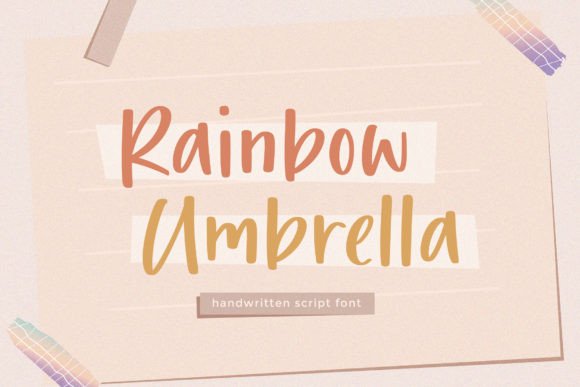
Enter the enchanting world of Rainbow Umbrella Font, a handwritten masterpiece that captivates the senses and ignites creativity. With its graceful curves and elegant strokes, this script font exudes a timeless charm that adds a touch of sophistication to your designs.
Explore the boundless possibilities of Rainbow Umbrella. Whether you seek to craft compelling logos, captivating social media posts, or stunning invitations, this font family empowers you to make a lasting impression. Its versatility shines through in every application, making it the font of choice for discerning designers.
Immerse yourself in the beauty of each meticulously crafted character, where artistry meets functionality. Rainbow Umbrella's exceptional legibility ensures that your message is conveyed with clarity and impact, while its fluid forms create a visual harmony that draws the eye and captivates the reader.
With Rainbow Umbrella as your creative companion, you'll unlock a world of boundless possibilities. Let your imagination soar as you design logos that exude professionalism, social media posts that spark engagement, and invitations that create an air of elegance.
Don't settle for ordinary fonts. Embrace the Rainbow Umbrella, where beauty and functionality intertwine to elevate your designs to new heights. Experience the joy of effortless creativity as you transform your projects into masterpieces that leave an indelible mark.